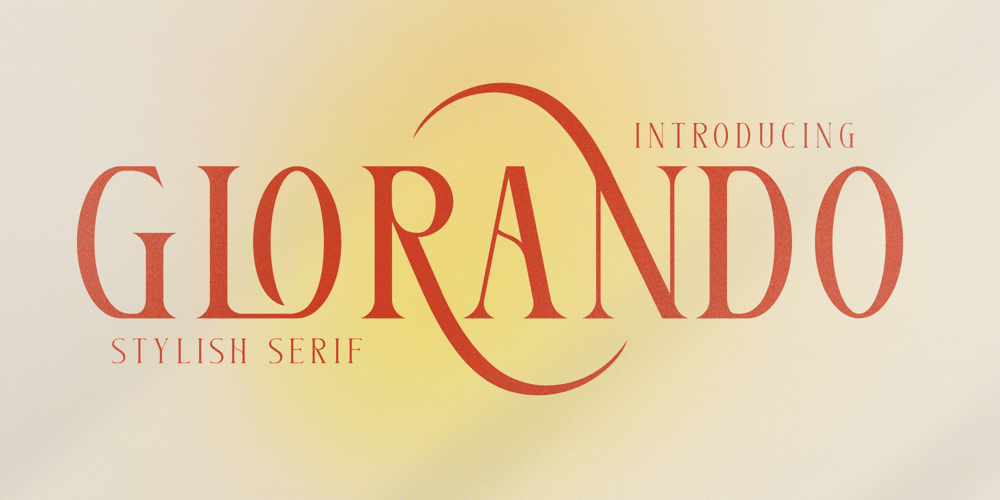
Glorando Font Family was designed by Heru Utama Putra and published by Letterena Studios. Glorando contains 2 styles and family package options. Proudly present Glorando Typeface, created by Story type,A serif modern and classic typeface that has its own unique style & modern look.This typeface is perfect for an elegant & luxury logo, book or movie title design, fashion brand, magazine, clothes, lettering, quotes, and so much more.This font is PUA encoded which means you can access all of the glyphs and swashes with ease!